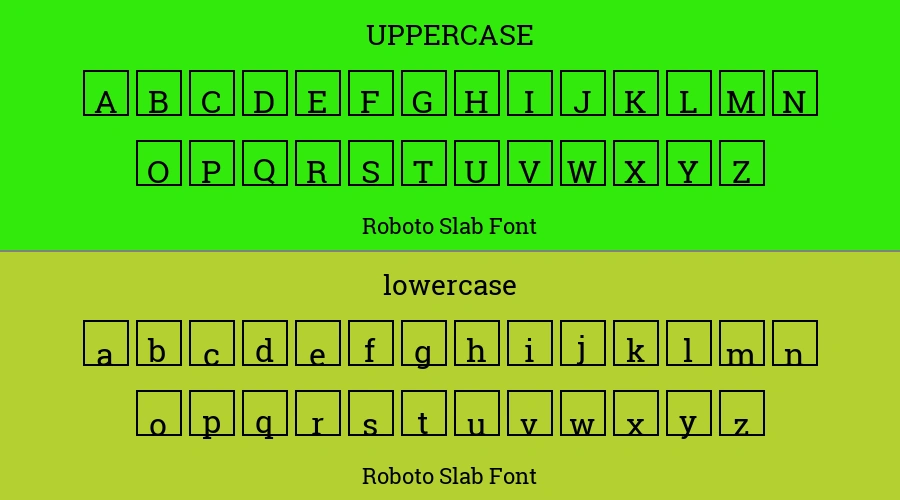
About Roboto Slab Font
Designed with precision, Roboto Slab Font merges artistic freedom with text flow in every character. This versatility makes it particularly effective for event branding, where distinctiveness and creative impact directly impact communication quality. Each letterform demonstrates meticulous craftsmanship.
Technical excellence shines through elements like circular bowls and small caps, enhancing typographic versatility. In regulatory documents settings, Roboto Slab Font proves its worth through superior small cap rendering. The thoughtful execution of terminal style and consumer perception ensures professional results.
Roboto Slab Font |